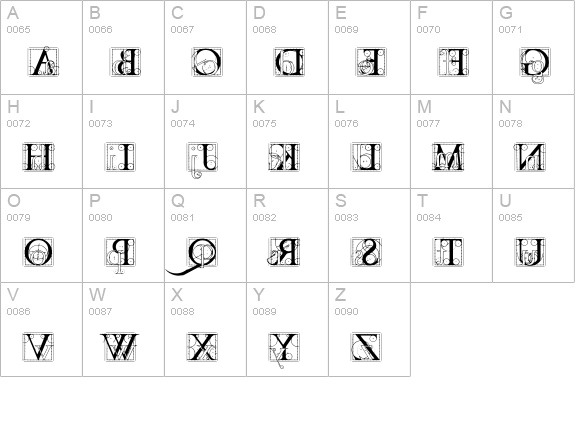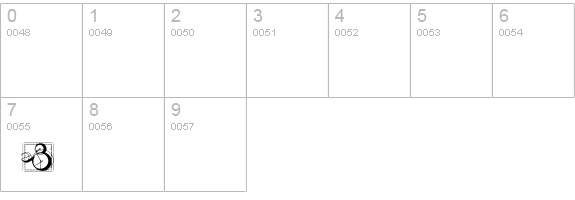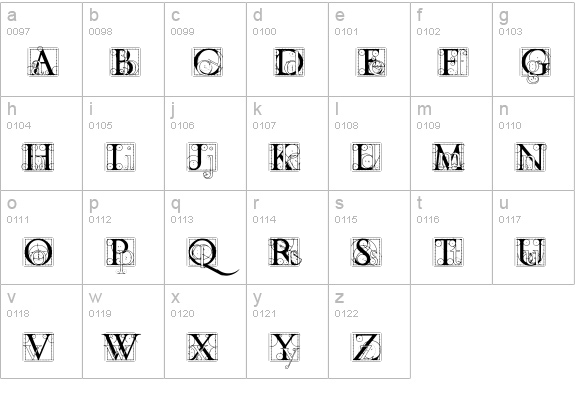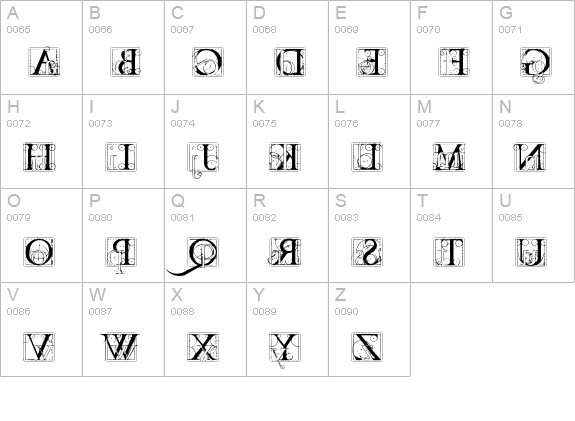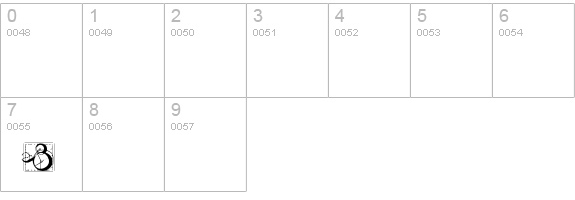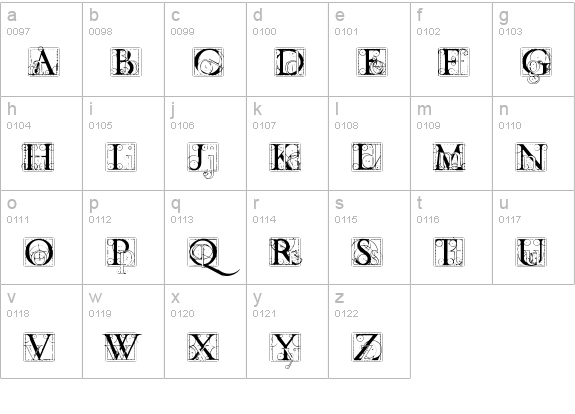
codex Font Details
Codex Font is a modern and stylish typeface that exudes elegance and sophistication. With its clean lines and sleek curves, Codex Font is perfect for a wide range of design projects, from branding to editorial layouts. Its versatility makes it a popular choice among designers looking for a font that can seamlessly blend into various design aesthetics. The best part about Codex Font is that it is available for free download at FontsMarket.com. This means that you can easily access this high-quality font without any cost, making it a valuable addition to your font collection. Whether you are working on a personal project or a professional design, Codex Font is sure to elevate your work with its timeless appeal and versatility. Don't miss out on the opportunity to enhance your design projects with the elegant and timeless Codex Font, available for free download at FontsMarket.com.